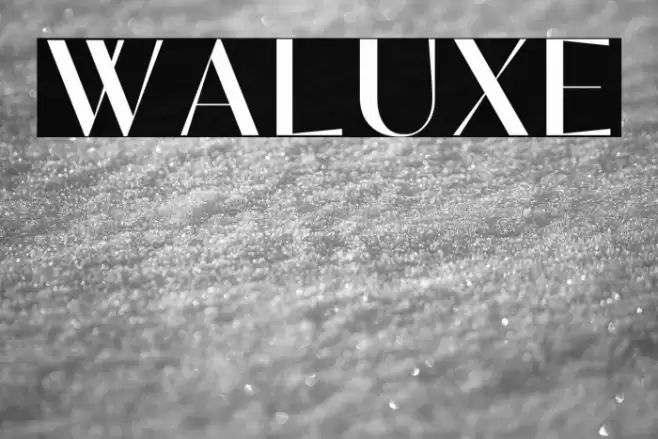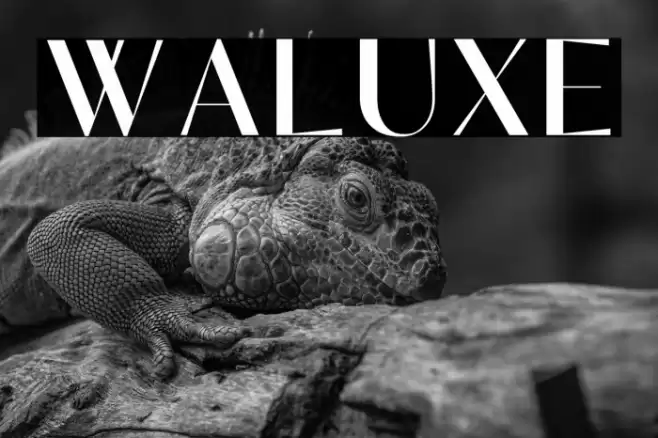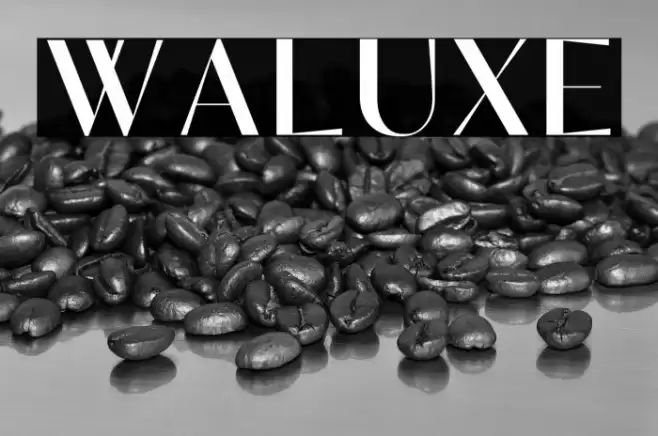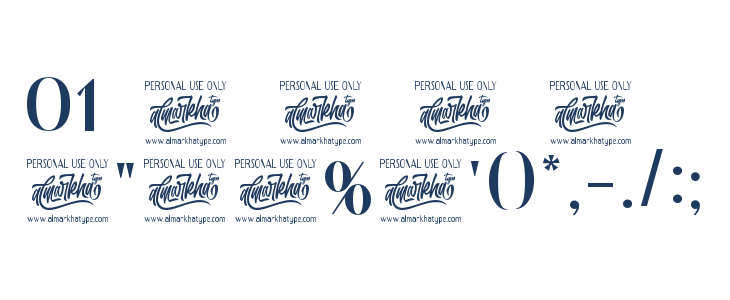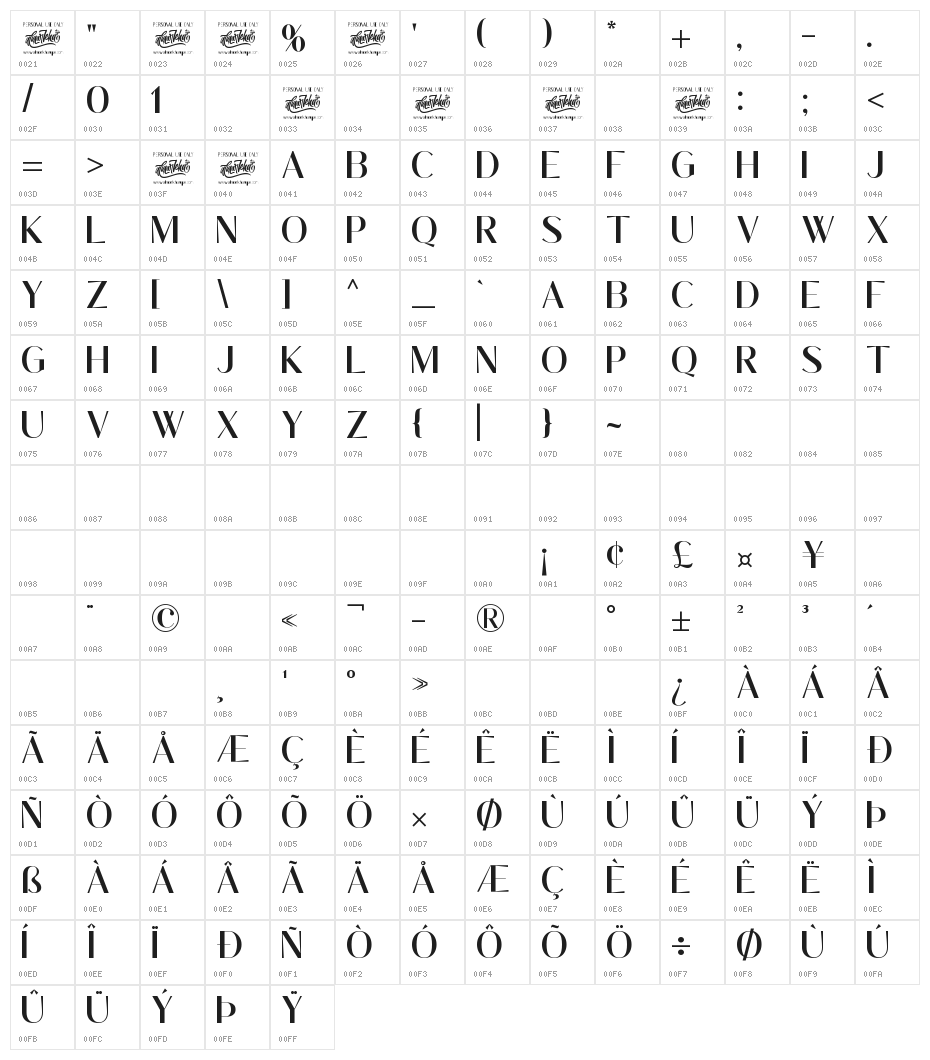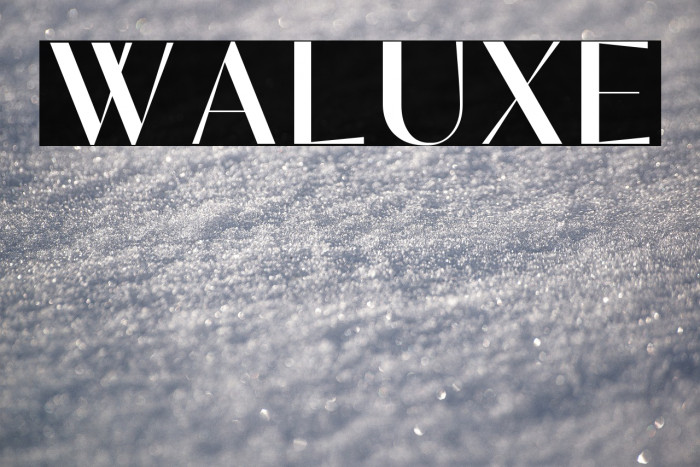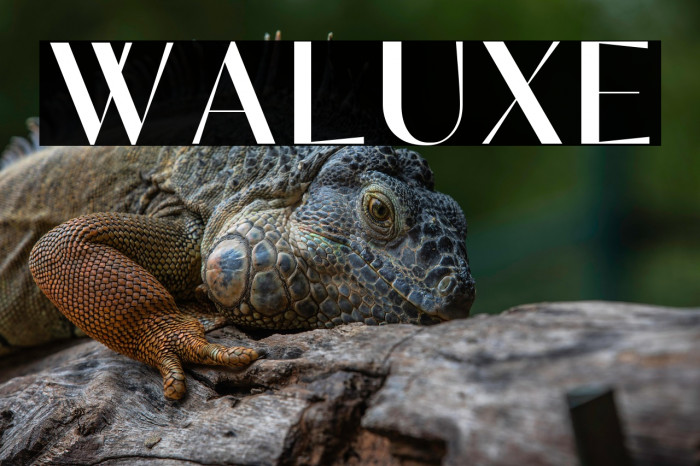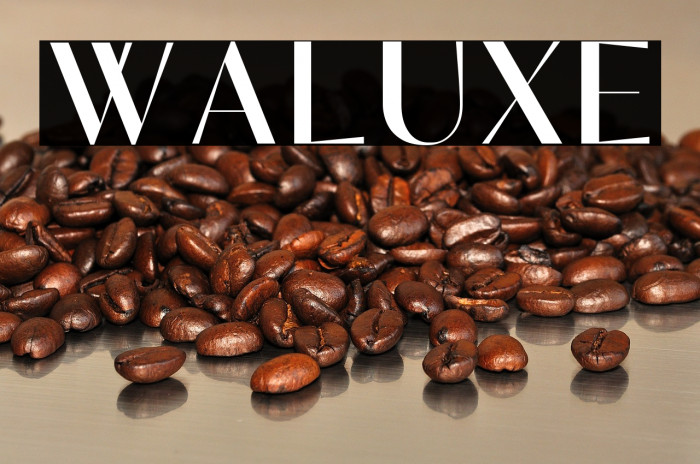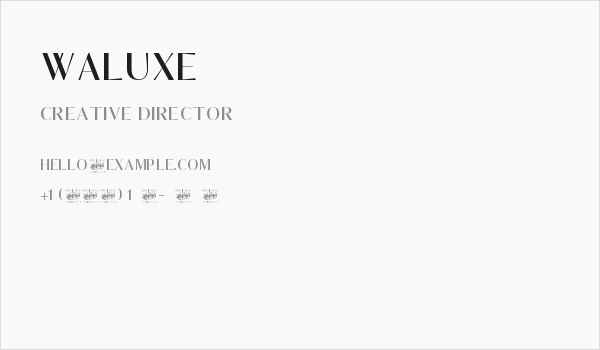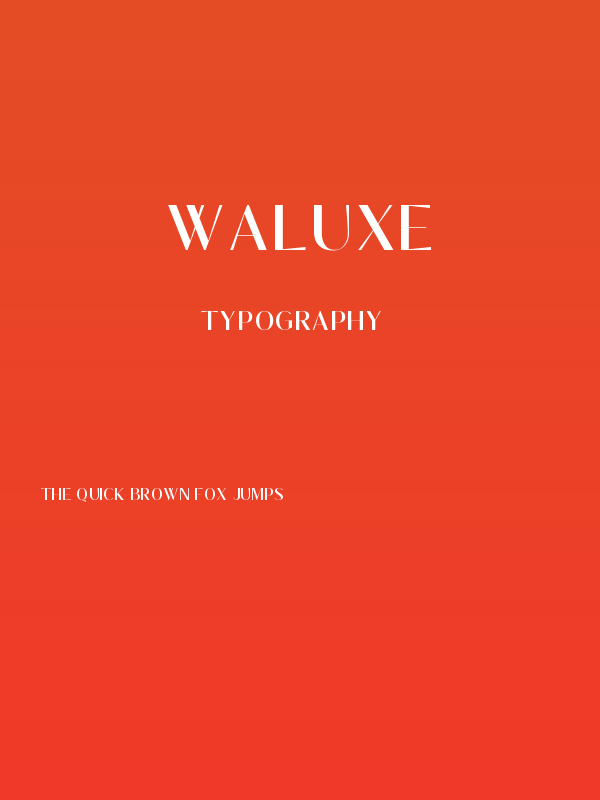
Waluxe Font
Waluxe Description
This font exhibits a modern and elegant style with a high contrast between thick and thin strokes, giving it a sophisticated appearance. The uppercase letters are sharp and angular, while the lowercase letters maintain a more subtle and refined look. The numbers are bold and clear, ensuring readability. Special characters are designed with a unique flair, adding to the font's overall decorative appeal. This font is perfect for making a statement in any design project, combining both classic and contemporary elements.
A modern, high-contrast font with elegant and sophisticated styling from Regular fonts.
- Proposed Projects: Ideal for luxury branding, editorial design, fashion magazines, and high-end product packaging.
- Overall Style: Modern, Elegant
- Use Case: Headlines, Logos, Branding